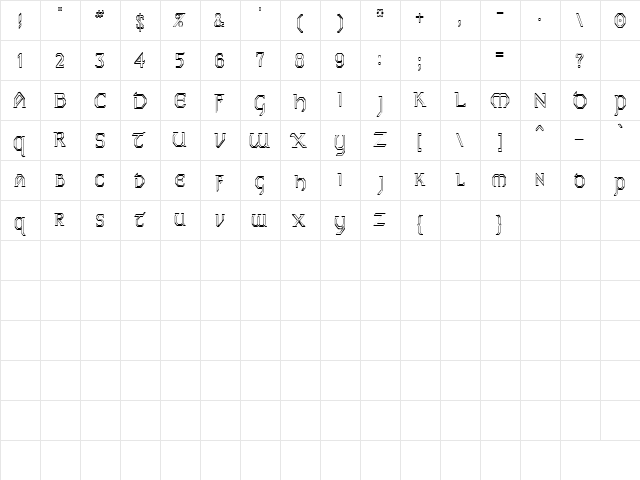
Futuregoth 3 Regular
Design Context for Futuregoth 3 Typeface
Futuregoth 3 channels digital-age aesthetics through its sharp, structured letterforms — ideal for brands that want to signal innovation.